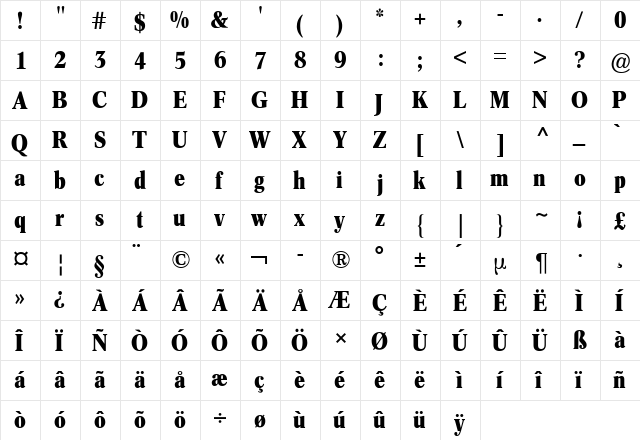
ConcordeCondensedBQ Bold Condensed
Design Context for ConcordeCondensedBQ Typeface
ConcordeCondensedBQ is a composed and adaptable typeface that performs quietly and consistently across a wide range of design contexts. The heavy weight commands attention and anchors typographic hierarchies. The condensed width makes it efficient for tight spaces without sacrificing legibility.